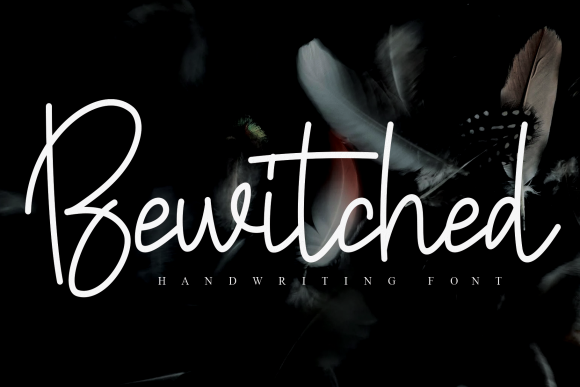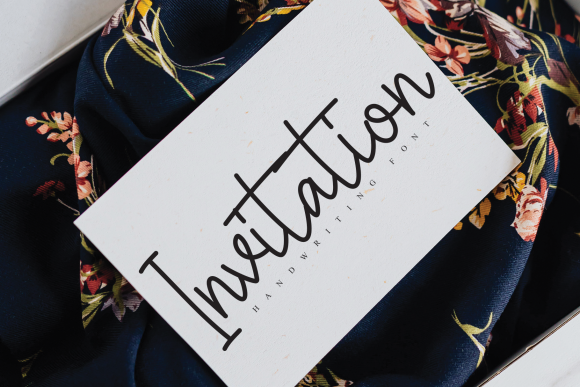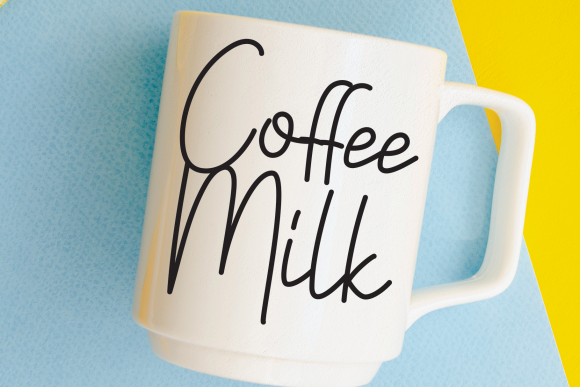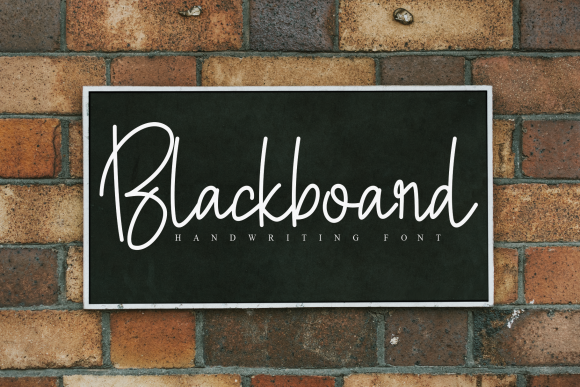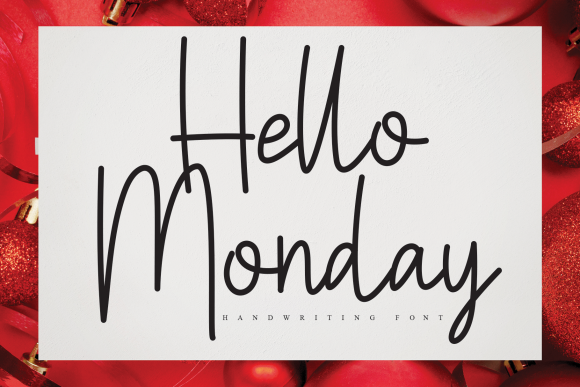
Bewitched Font
About Bewitched Font
Bewitched is a well balanced and delicate handwritten font. It is defined by beautiful curves and is perfect for fashion branding or editorial designs. Add it confidently to your projects, and you will love the results.